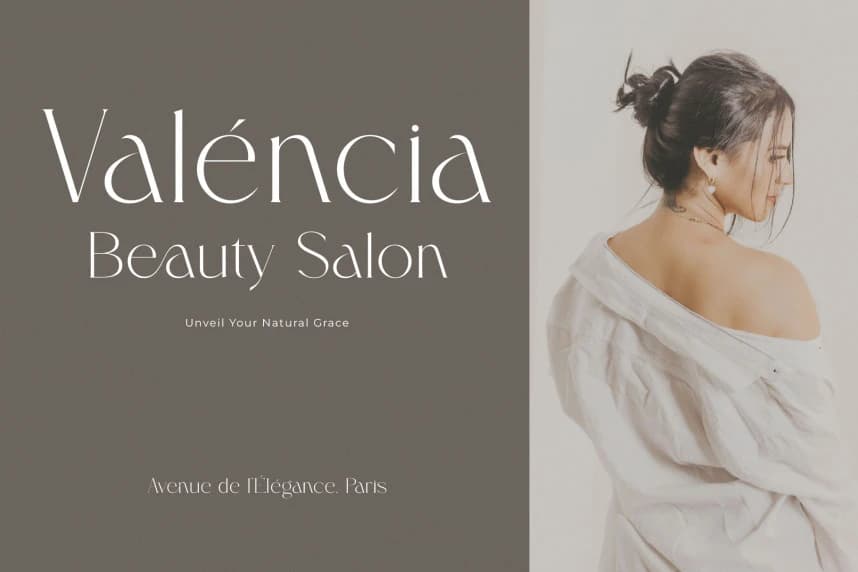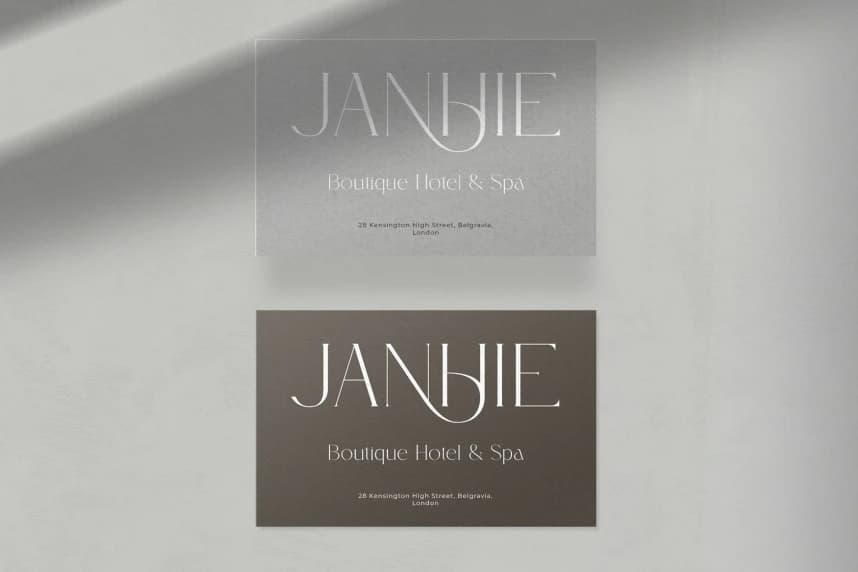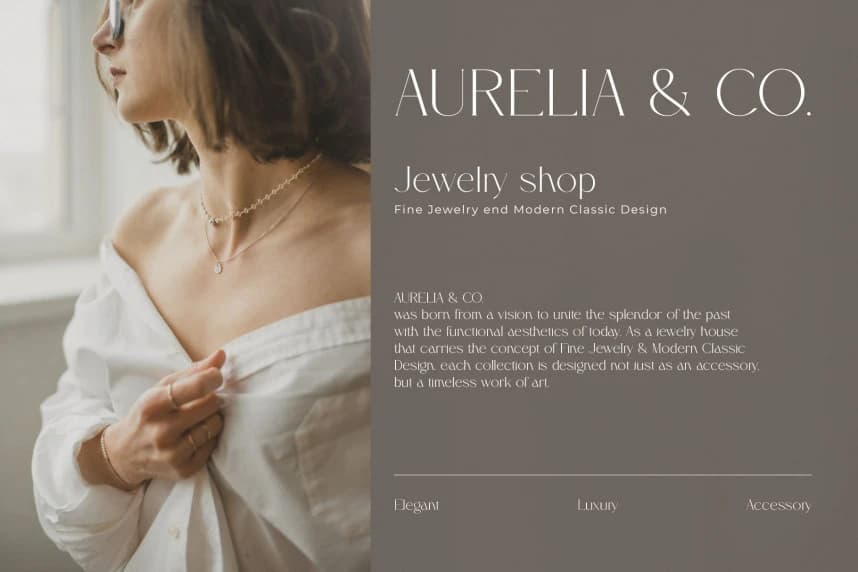
Ethorys Font
Ethonys Font, a breathtakingly elegant serif font. Perfectly striking the balance between timeless sophistication and contemporary editorial design, this typeface features high-contrast stokes, refined serifs, and exquisitely curved ligatures that fluidly connect letterforms (like the stunning ‘t-h’ pairing).